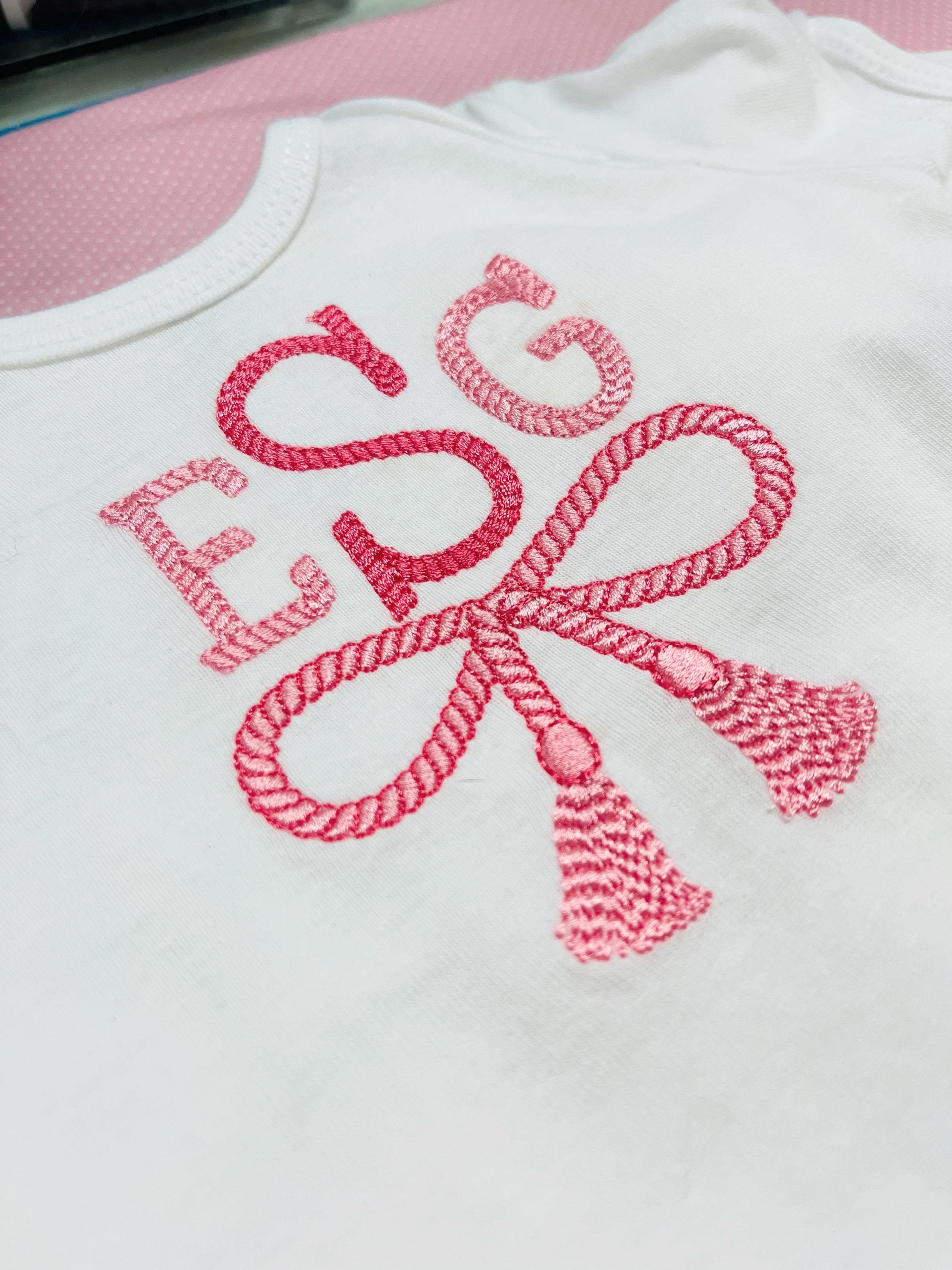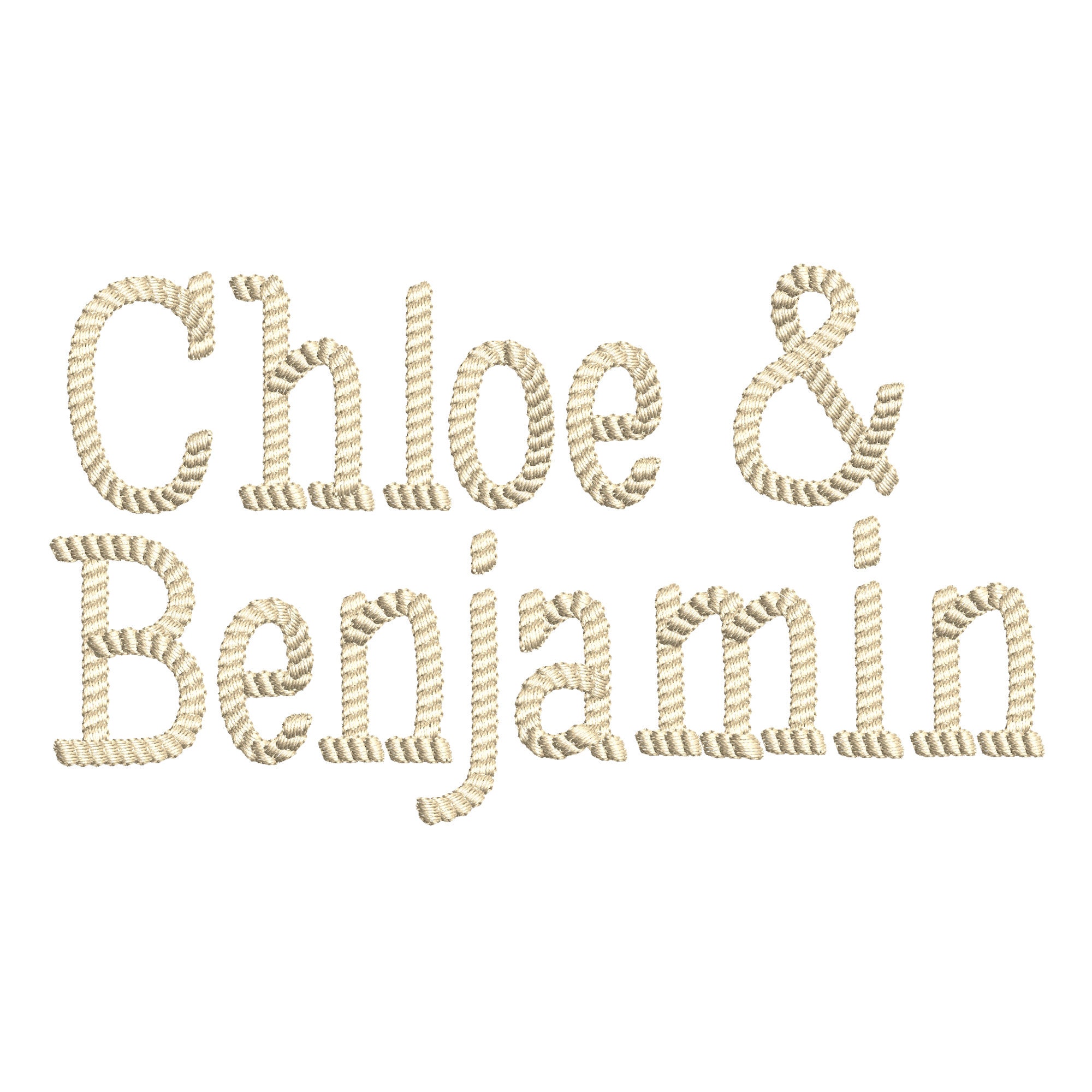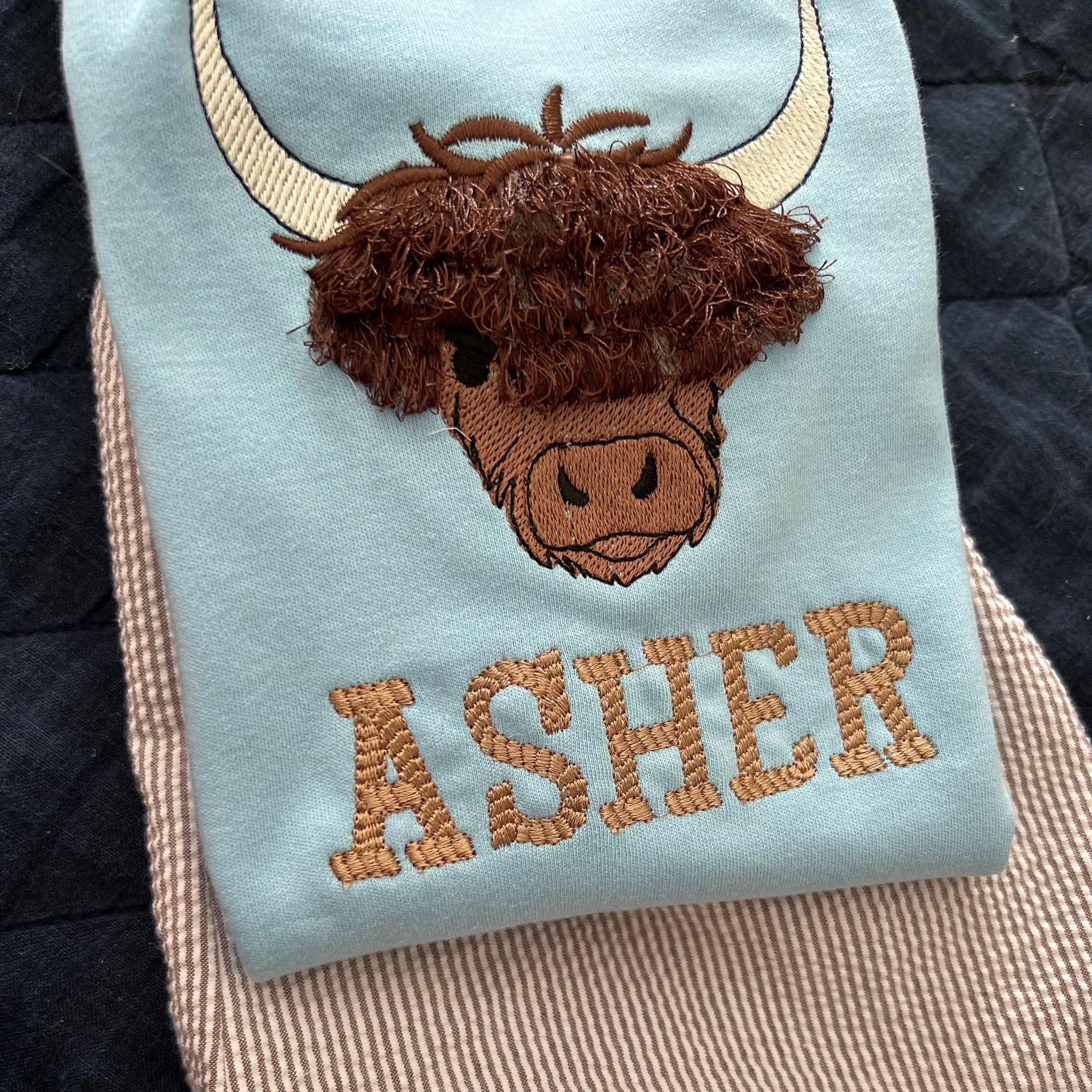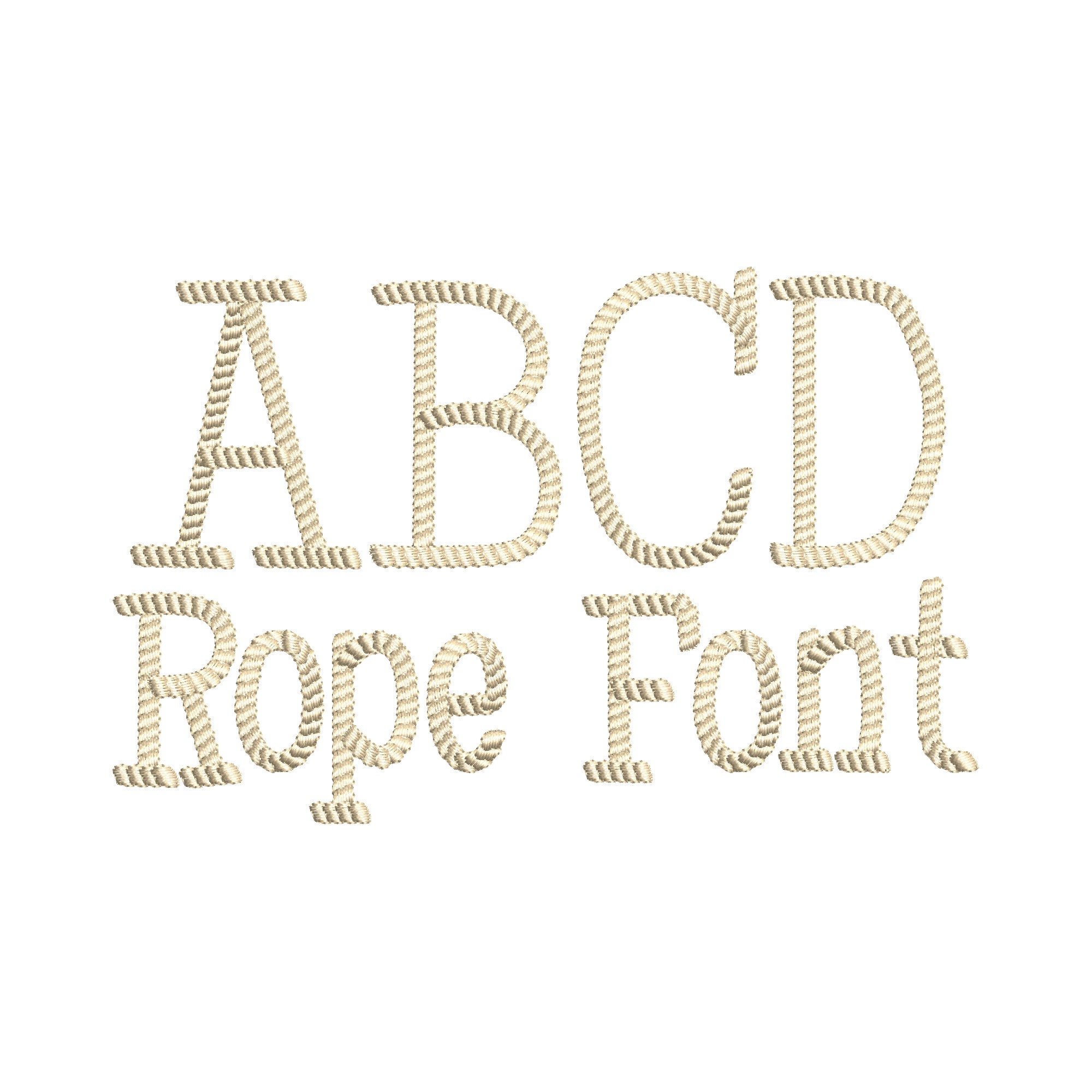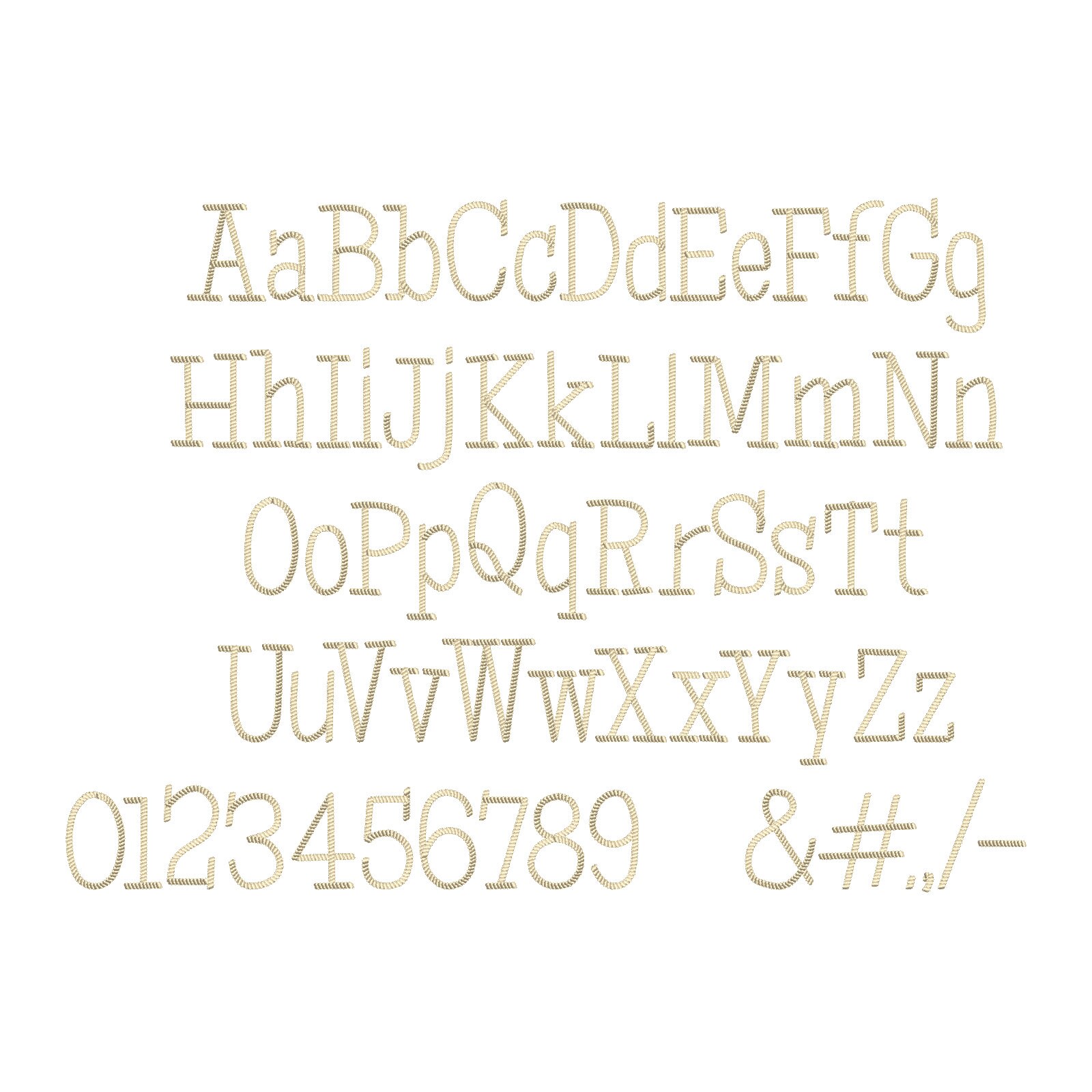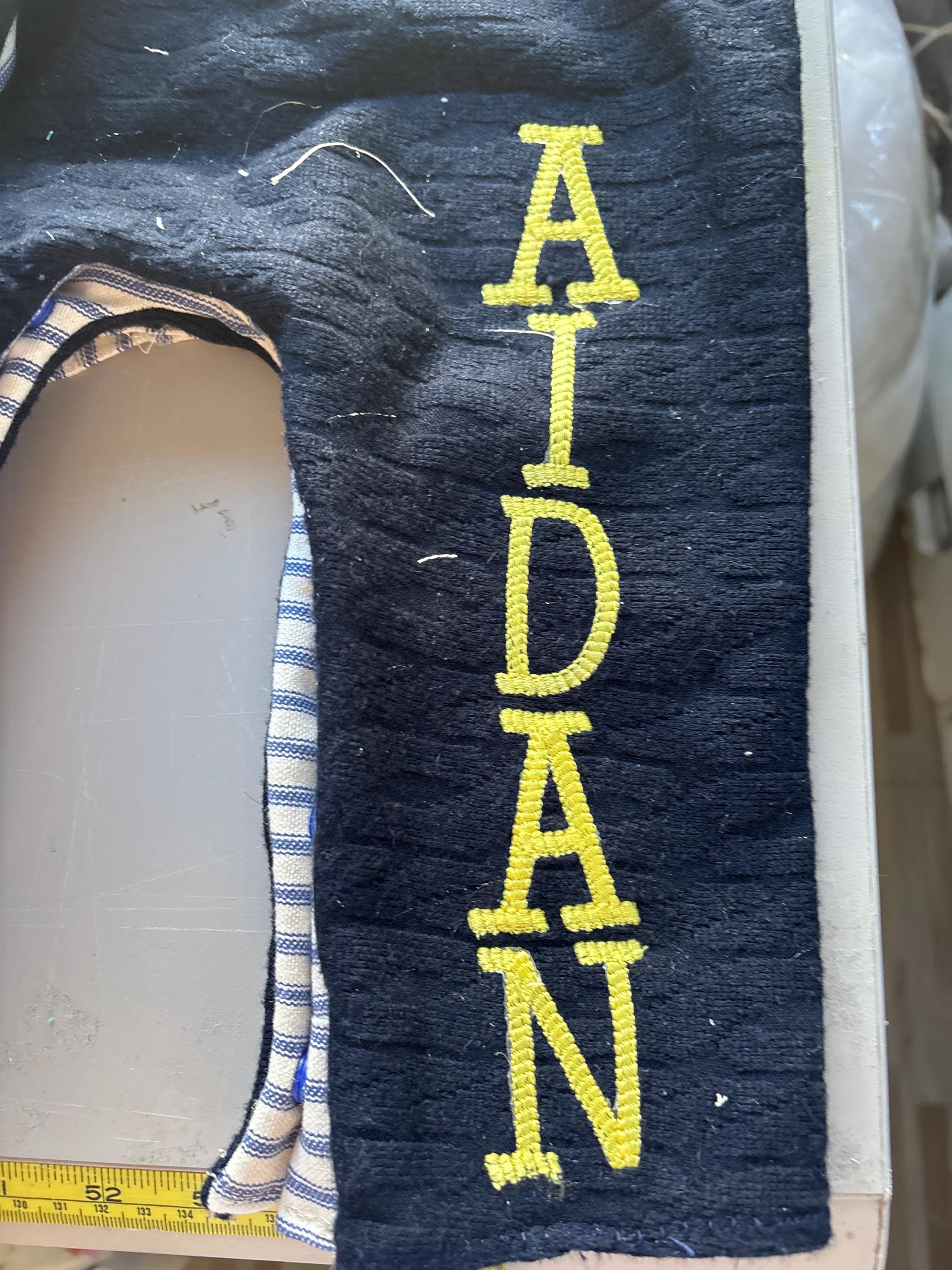
Rope FONT alphabet letters and numbers machine embroidery designs in assorted mini sizes playful kids name cowboy boy cowgirl monogram BX
the font was just precious with boot embroidery for a rodeo shirt.
Super cute font stitched out nicely
Perfect stitch! Just what I wanted!
Great design and sewed out perfectly!